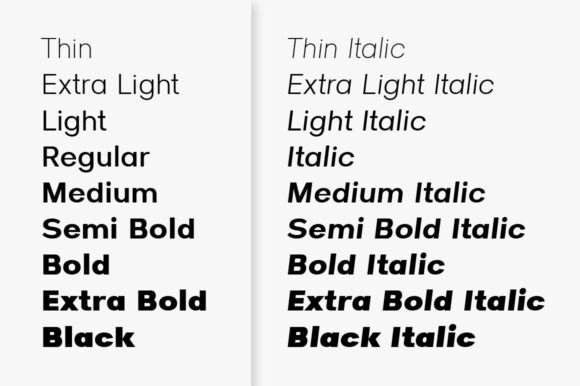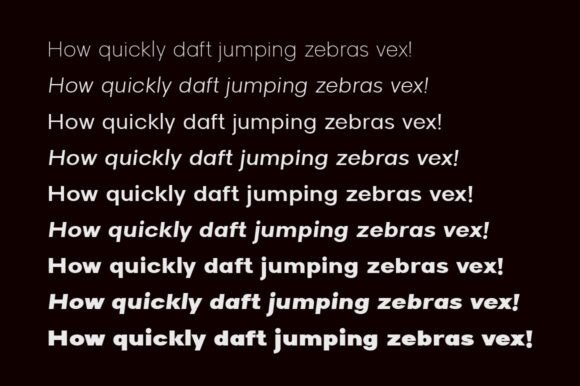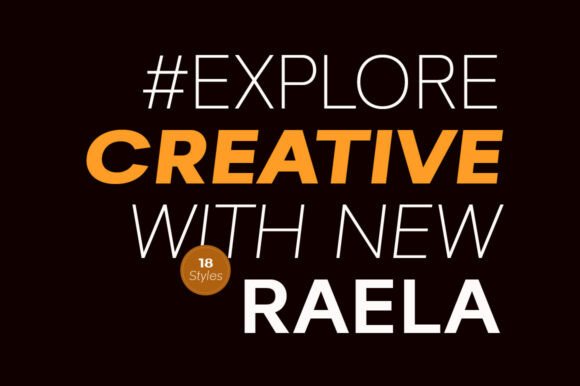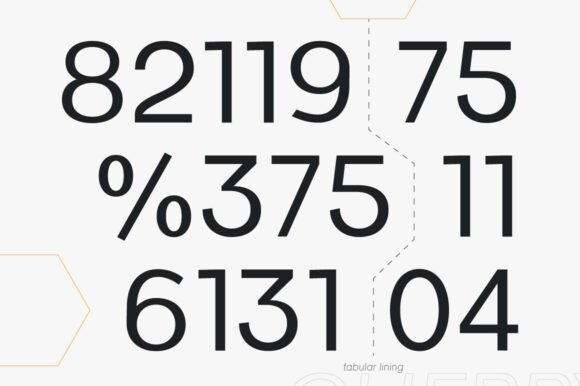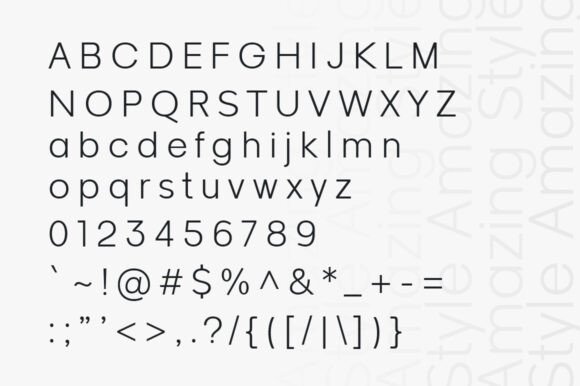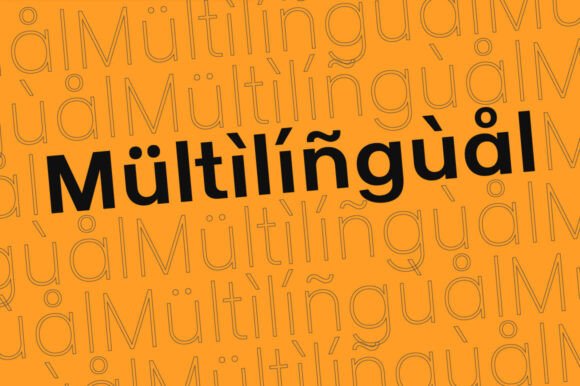
Introduction to Raela Font
Raela is a meticulously crafted geometric sans serif typeface that delivers regularity and simplicity while exuding a bold and strong personality.
Designed for readability and versatility, its proportional width, flat apex, closed aperture, and straight-cut stroke ends enhance its contemporary appeal .
Key Features of Raela Font